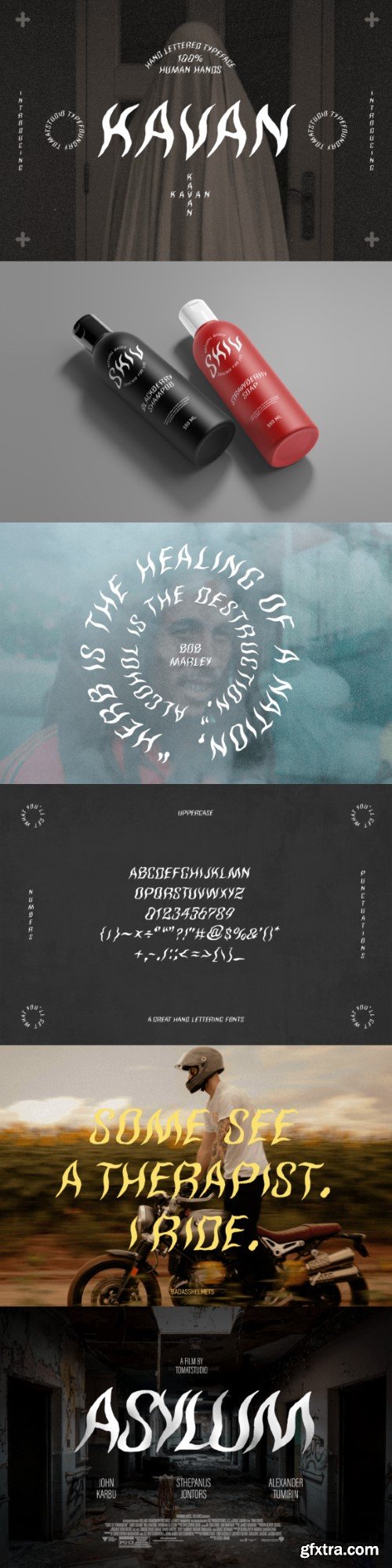
卡万字体
Crafted carefully by human hands and digitalized with Wacom, the curved effect is manually created to give a natural and rough effect. This font is special and unique, you can use it for horror, nature, soul, passion, etc.